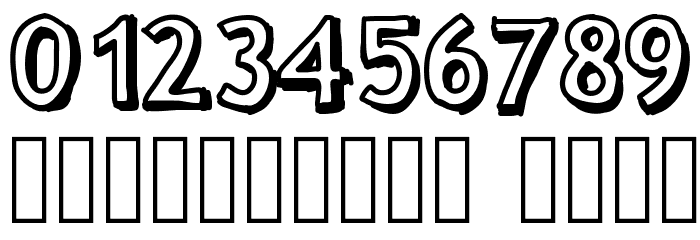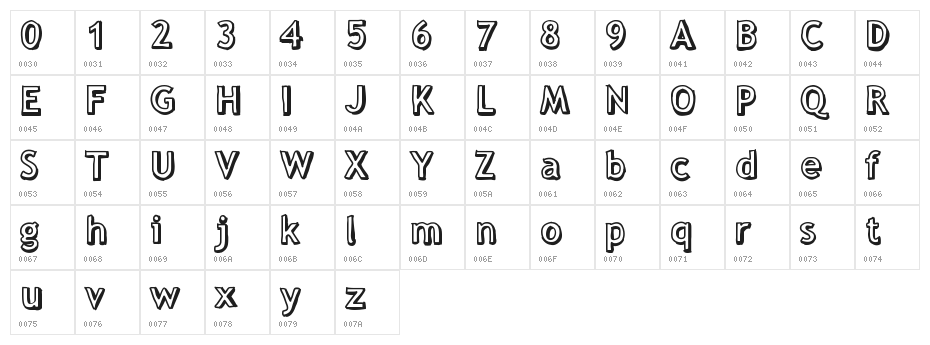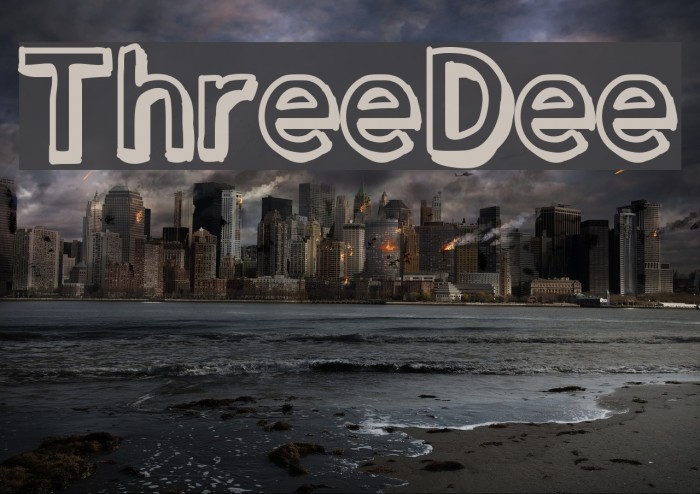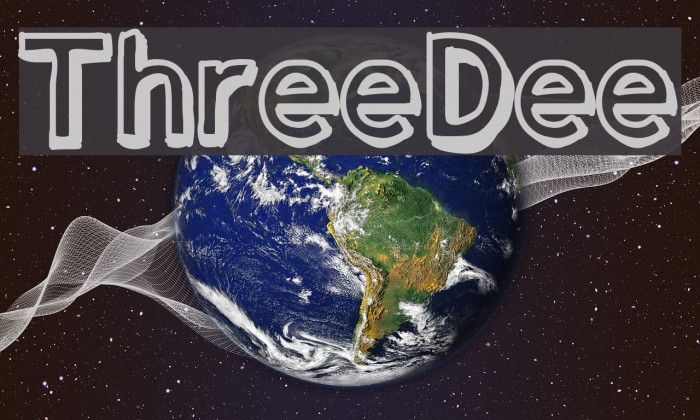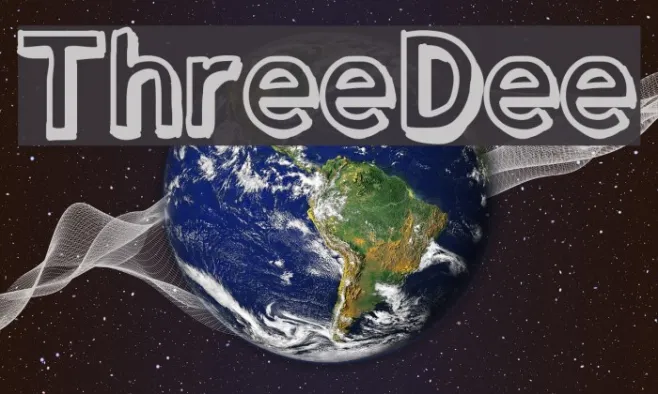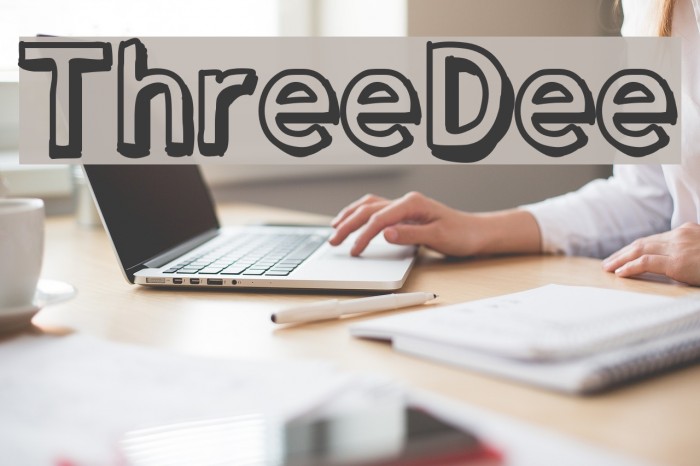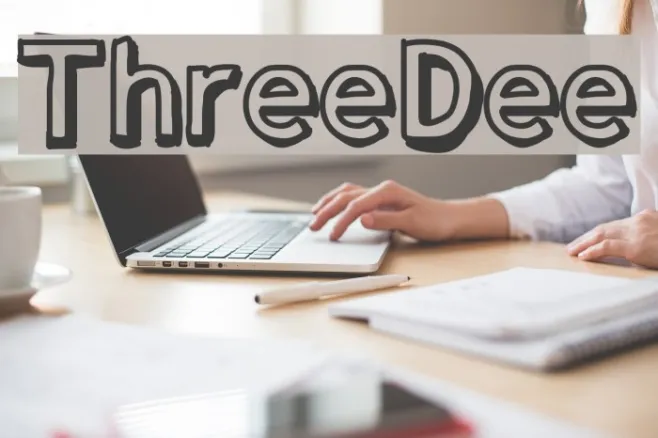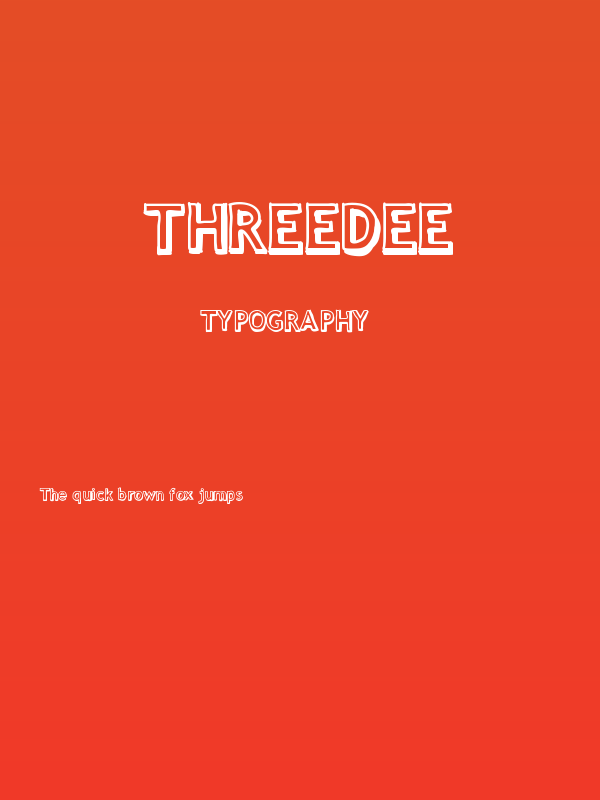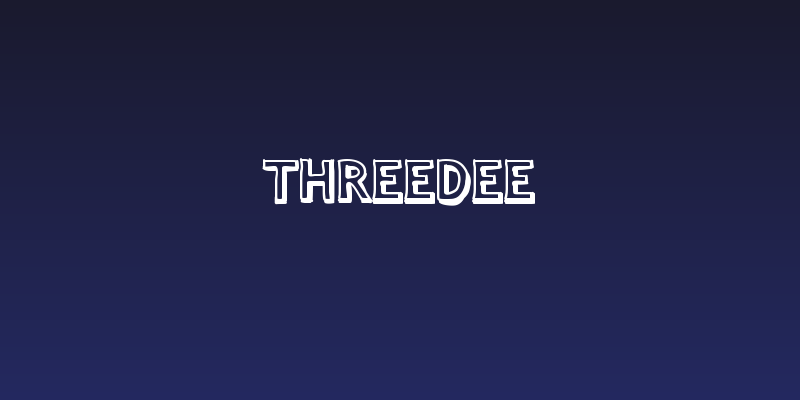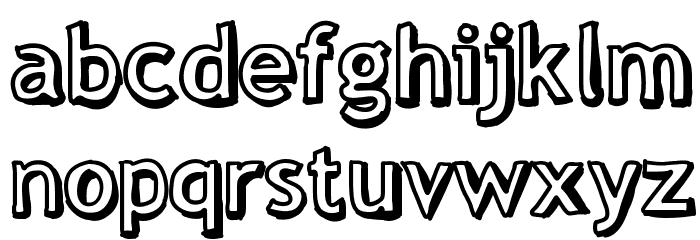
ThreeDee Font
ThreeDee Description
This font features a bold, three-dimensional style with a playful and dynamic appearance. The letters are outlined with a shadow effect, giving them a sense of depth and movement. The uppercase and lowercase characters maintain a consistent style, with rounded edges and a slightly informal feel. The numerals and special characters follow the same design, ensuring uniformity across all glyphs. This font is ideal for projects that require a fun and engaging look, such as children's books, posters, or video game graphics.
| Proposed Projects | Ideal for children's books, posters, video game graphics, and any project needing a fun, engaging look. |